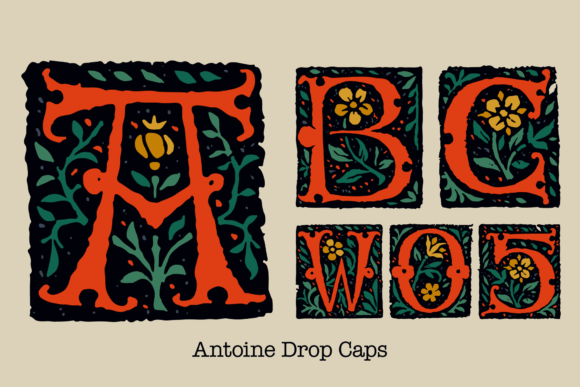
Unlock the Magic of Medieval Typography
Have you ever stared at a beautifully illustrated manuscript and wondered how to recreate that enchanting atmosphere in your own designs? As a designer, I’ve often found myself captivated by the intricate details of medieval typography. The way the letters seem to dance across the page, inviting the reader to step into a world of wonder and imagination.
That’s where the Antoine Drop Caps Font comes in – a stunning collection of initials that will transport your designs back to the 16th century. With Regular, Light, and Colored styles to choose from, this font family offers the perfect blend of elegance and versatility. Whether you’re creating a historical romance novel, a fantasy adventure, or simply want to add a touch of whimsy to your branding, the Antoine Drop Caps Font is an essential tool in your design arsenal.
Antoine Drop Caps Font Key Features
- Unique Characteristics: Antoine Drop Caps Font is a distinctive font designed for drop caps, with ornate and elegant designs that add a touch of sophistication to any text.
- Size: The font is available in a single size, but it can be scaled up or down to fit various design requirements.
- Font Style: Antoine Drop Caps Font comes in a single style, but it offers a range of ornaments and decorations that can be used to create unique and eye-catching designs.
Antoine Drop Caps Font Review
Overall, I think the Antoine Drop Caps Font is a beautiful and unique addition to any design project. It’s perfect for adding a touch of elegance and sophistication to titles, headings, and other important text elements.
- ✨ Beautiful drop cap design that adds a touch of personality to text
- ✨ Highly customizable with a wide range of font sizes, colors, and styles
- ✨ Great for creating a sense of hierarchy and importance in a design
- ✨ Works well in both digital and print designs
- ⚠️ May not be suitable for large blocks of text, as the drop cap design can become overwhelming
- ⚠️ May require some additional styling to ensure that the font works well with other design elements
- ⚠️ Limited support for certain languages or characters may be an issue for international designs
Overall, I think the Antoine Drop Caps Font is a great choice for designers looking to add some personality and elegance to their designs. With a little creativity and planning, you can use this font to create truly stunning and effective designs.
Tips for Getting the Most Out of Antoine Drop Caps Font
Here are some tips to help you get the most out of Antoine Drop Caps Font:
- Use the font for titles and headings to add a touch of elegance and sophistication. Alternatives to Antoine Drop Caps Font
- Use the font as the main title font for the book title.
- Combine the font with a high-quality image of a book or a luxurious background to create a sophisticated look.
- Experiment with different colors and shading effects to add depth and dimension to your design.
- Pair the font with a elegant serif font for the author’s name or chapter headings.
Project Ideas with Antoine Drop Caps Font
Project 1: Luxury Book Cover Design
Create a stunning book cover design for a luxury novel or poetry book using the Antoine Drop Caps Font. This font adds an elegant touch to any design and can elevate the overall aesthetic of your project.
How to use Antoine Drop Caps Font:
Project 2: Wedding Invitation Design
Create a beautiful and unique wedding invitation design using the Antoine Drop Caps Font. This font adds a touch of elegance and sophistication to any design.
How to use Antoine Drop Caps Font: